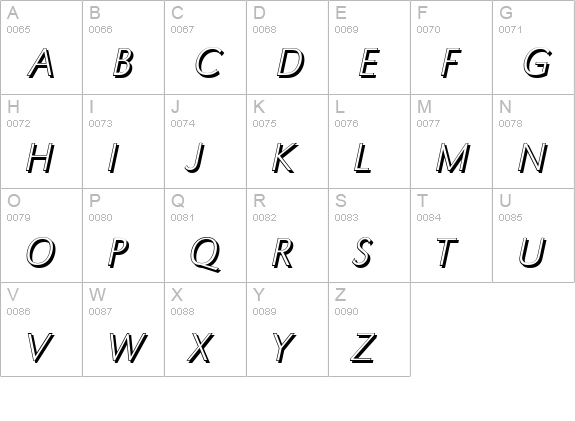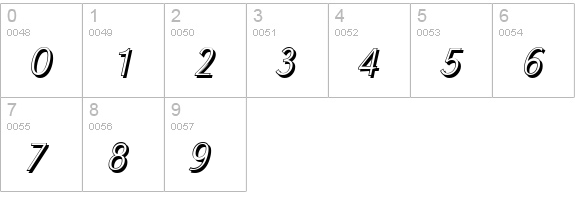
GroteskSh-Xlight-Italic is a distinctive, italic variant in the GroteskSh typeface family \xE2\x80\x94 well suited to design and typography projects.
Introducing GroteskSh-Xlight-Italic, a sophisticated and elegant font that exudes modernity and style. This unique typeface features a delicate touch with its slender letterforms and italicized design, making it perfect for adding a touch of sophistication to any project. The GroteskSh-Xlight-Italic font strikes the perfect balance between minimalism and character, making it versatile for a wide range of design applications. Best of all, GroteskSh-Xlight-Italic is available for free download at FontsMarket.com. This means you can easily access this stunning font to elevate your designs without any cost. Whether you're working on branding, editorial design, or any other creative project, GroteskSh-Xlight-Italic is sure to make a lasting impression with its sleek and refined aesthetic. Download this exquisite font today and take your designs to the next level!